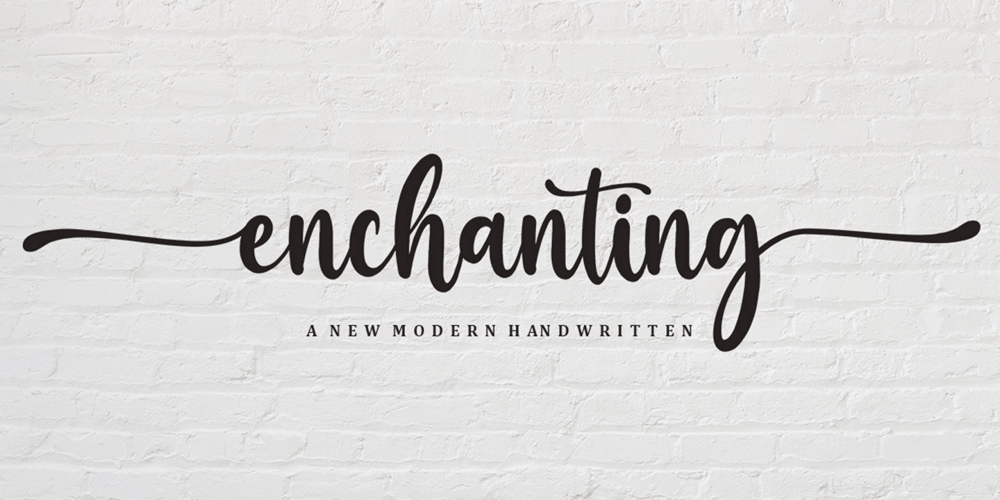
Enchanting Font Family was designed by Faqihuddin Ilza and published by Crowntype Studio. Enchanting contains 1 styles and family package options. Enchanting is a script type family of three fonts. It is inspired by Gorgeous Fonts and has a soft and welcoming look. Enchanting can be used for branding, packaging and wherever you need a script font that is easy to read and smooth. Enchanting has many ties, strokes and alternate characters that will make your designs unique and beautiful.